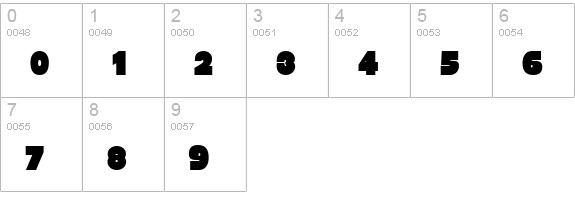
TR Baltar Font Details
TR Baltar is a stunning and versatile font that effortlessly combines modern elegance with classic sophistication. Its sleek lines and sharp edges make it perfect for a wide range of design projects, from branding to editorial layouts. This font exudes a sense of timelessness and refinement, making it a must-have for any designer looking to make a bold statement. Best of all, TR Baltar is available for free download at FontsMarket.com. This means that you can add this exquisite font to your collection without any cost, allowing you to elevate your designs with premium quality without breaking the bank. Don't miss out on the opportunity to enhance your creative projects with TR Baltar – download it today and see the difference it can make!